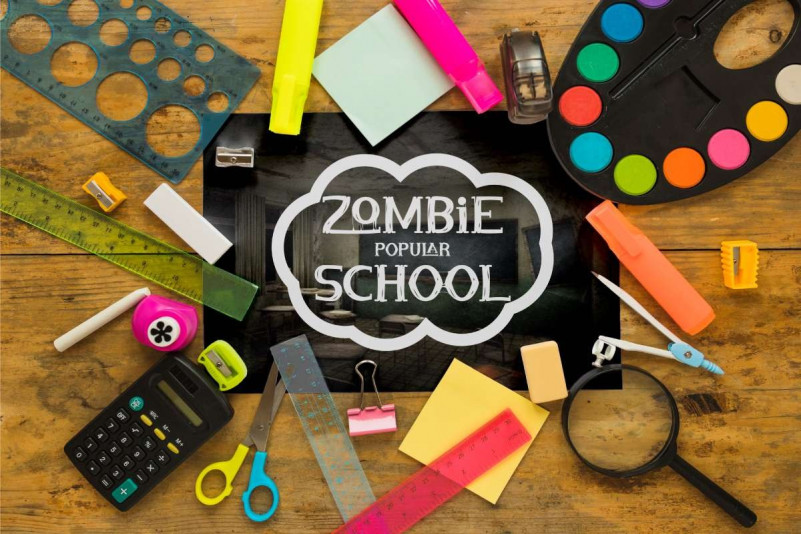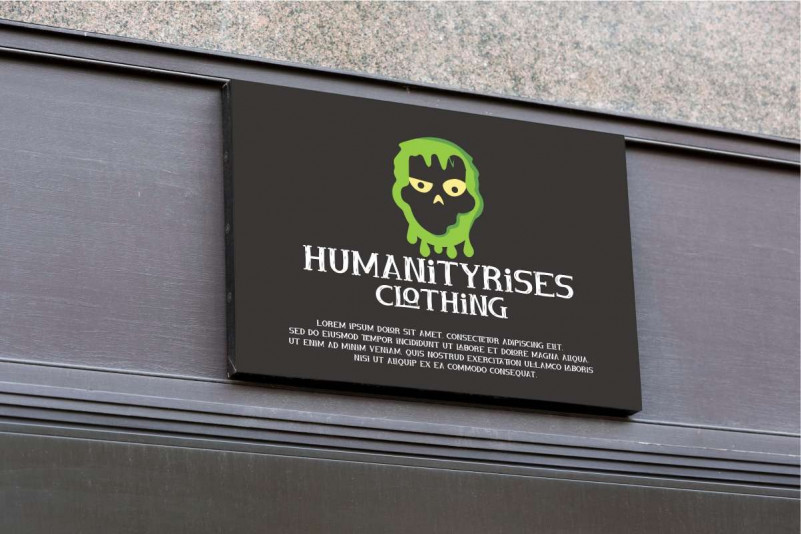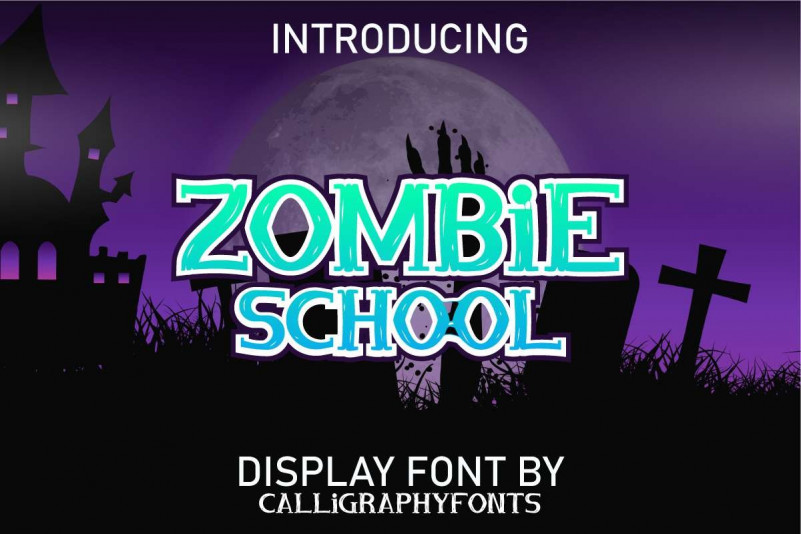
Zombie School Font
Zombie School Display Font is a fun horror themed display font inspired by the zombie movie. This font has fun, little disgusting, mysterious, and spooky style. It’s very interesting for your various creativity related to zombies or for apparel design, carnival, Halloween party, headline, musician, poster, packaging, rock band, school, signage, and anything that requires scary but funny styled writing.